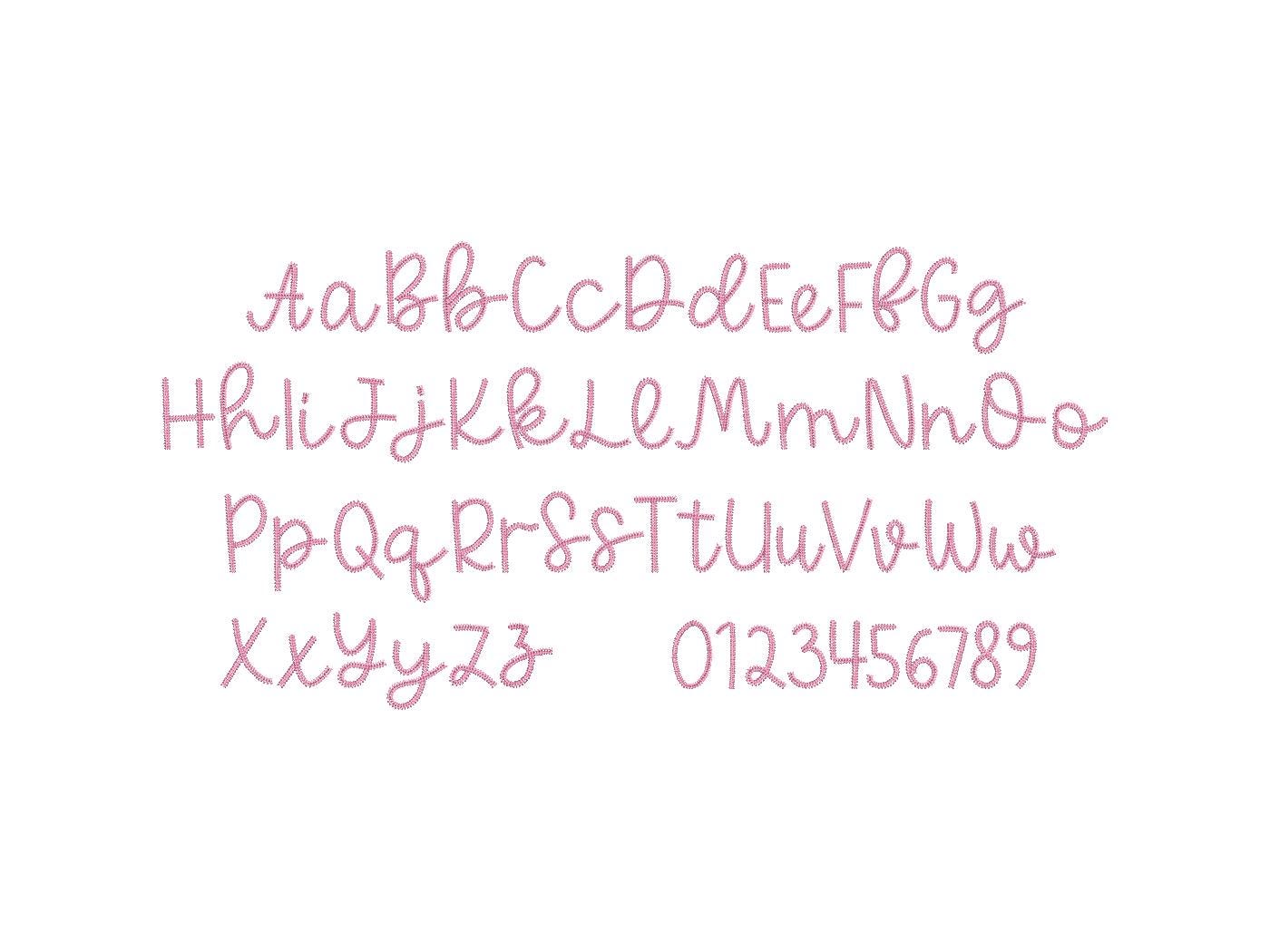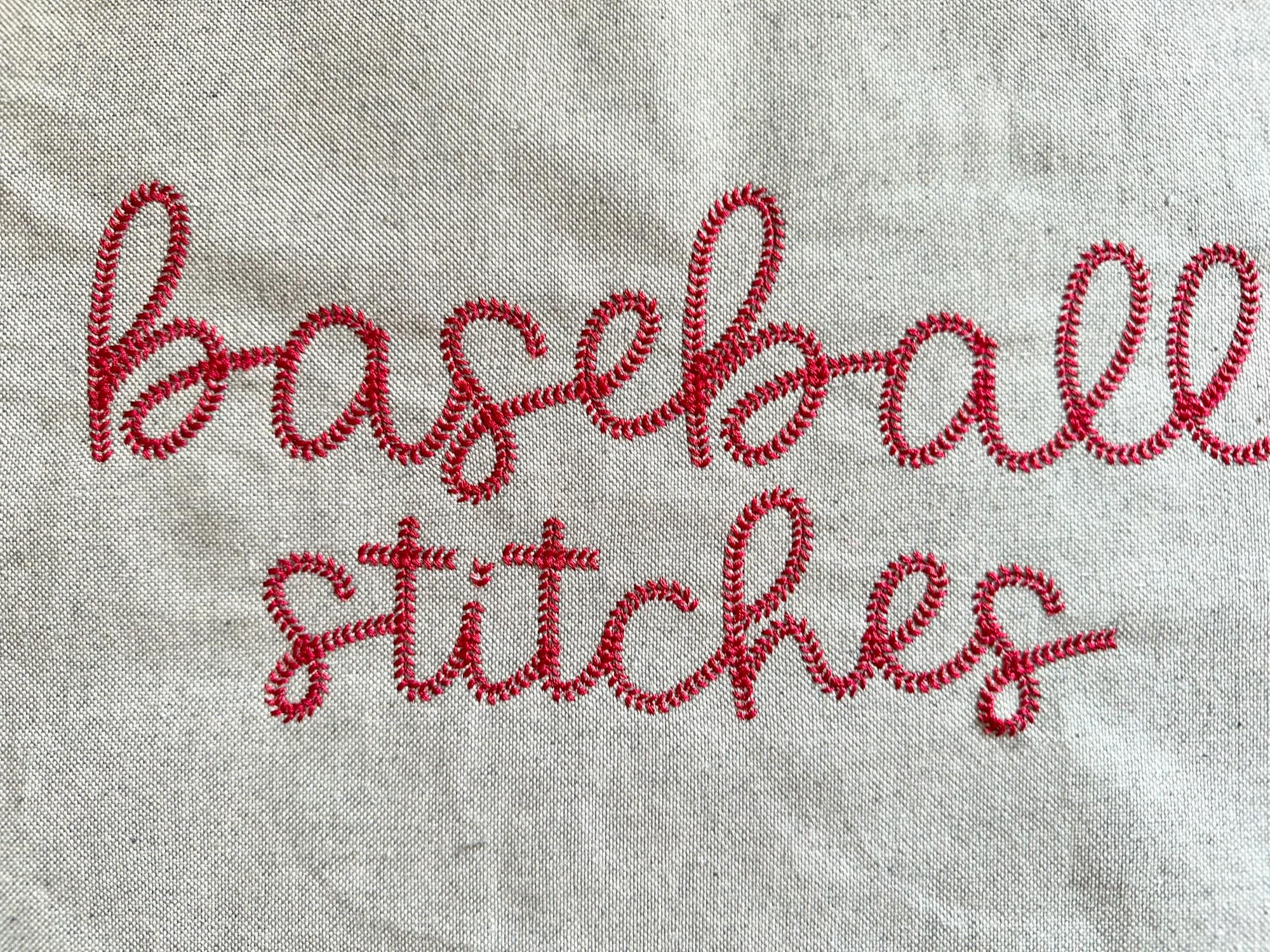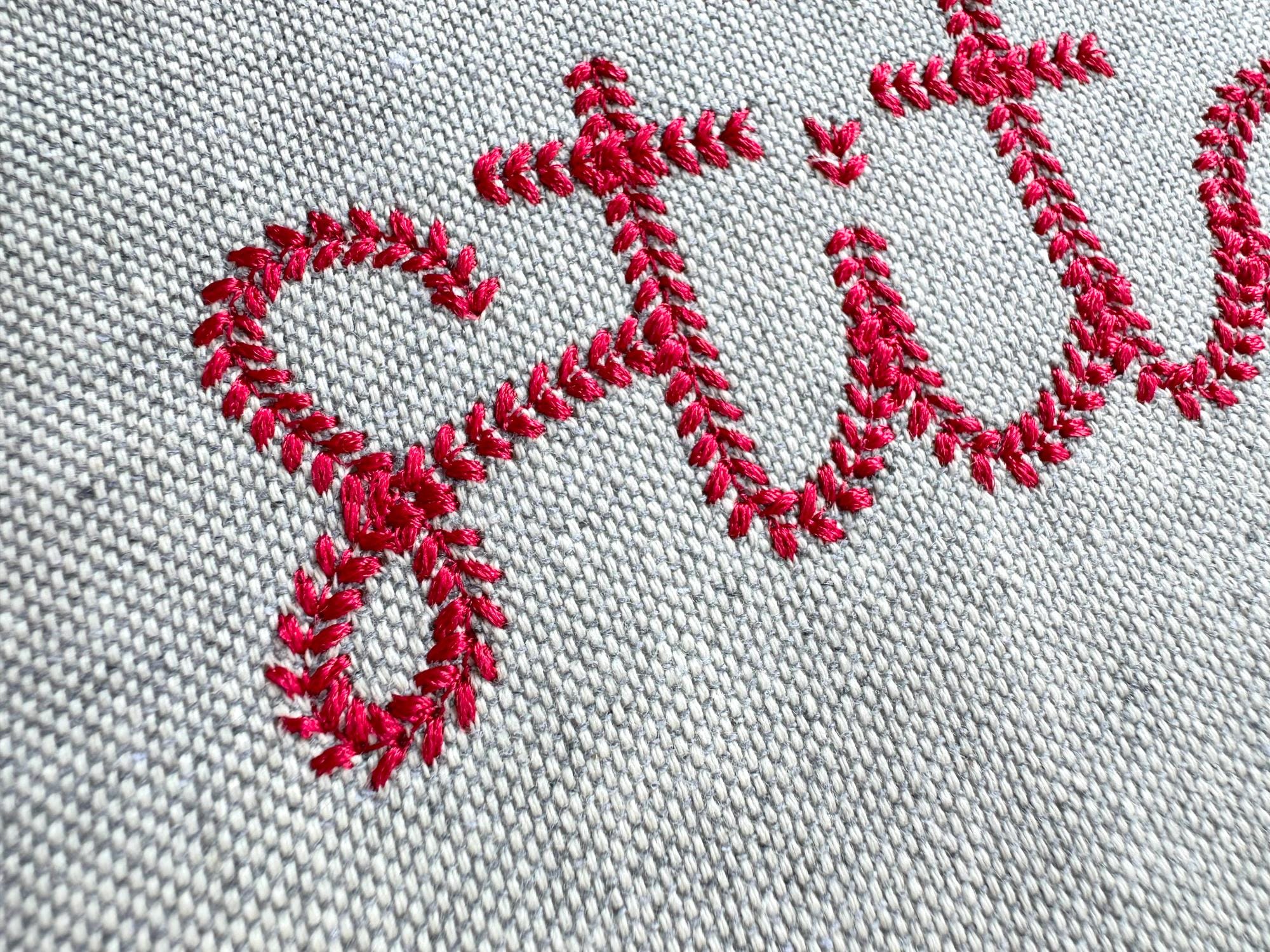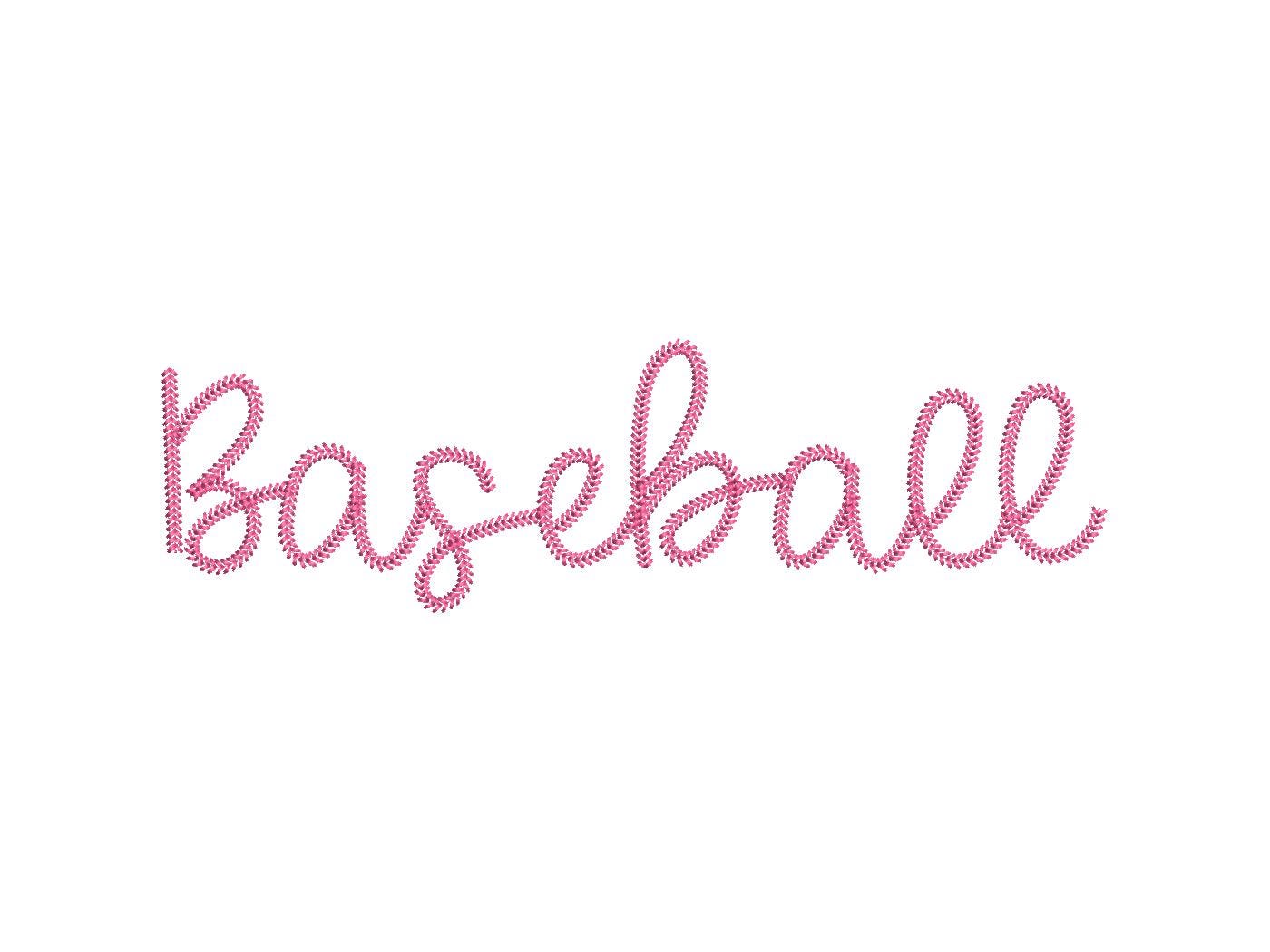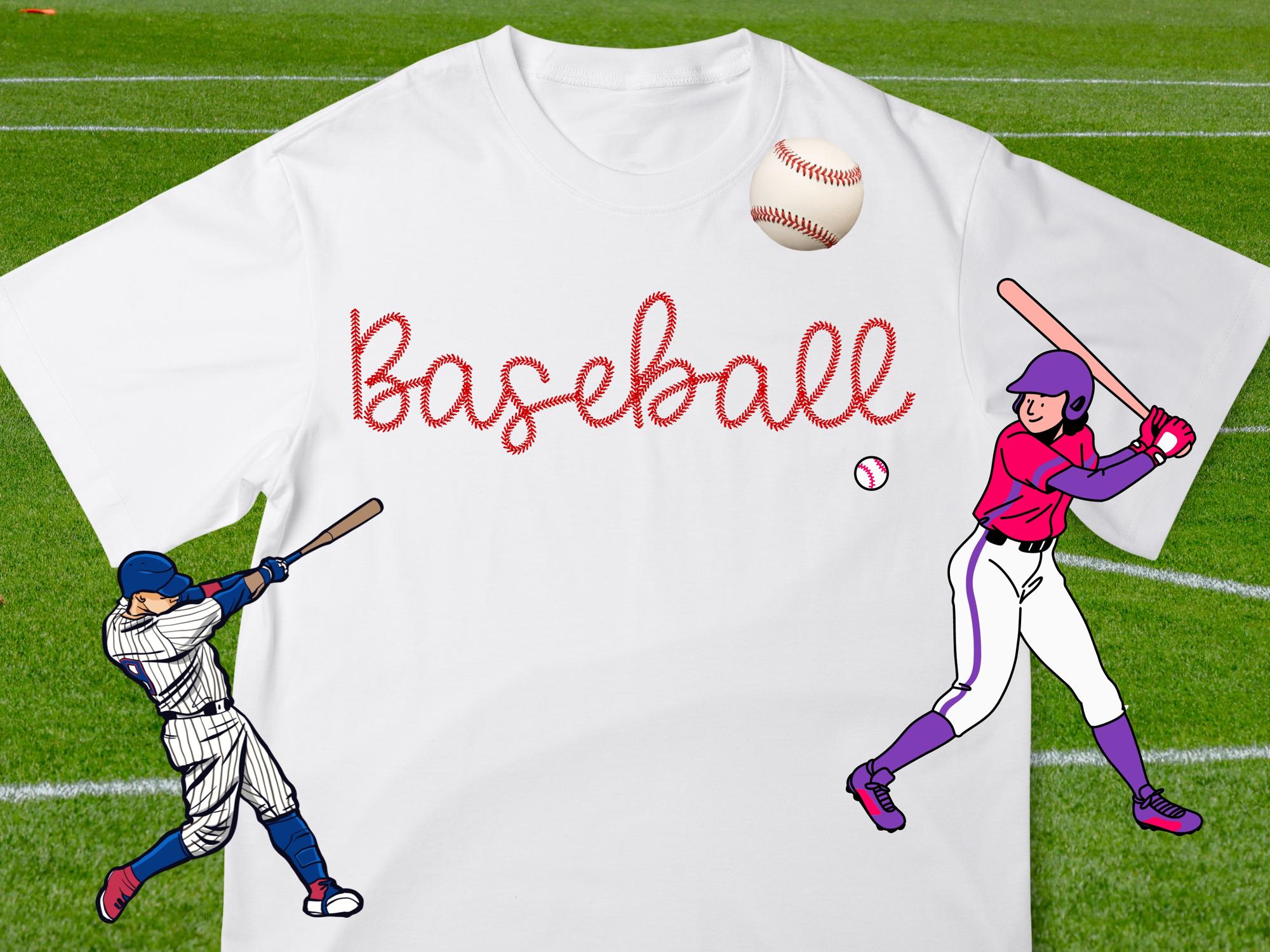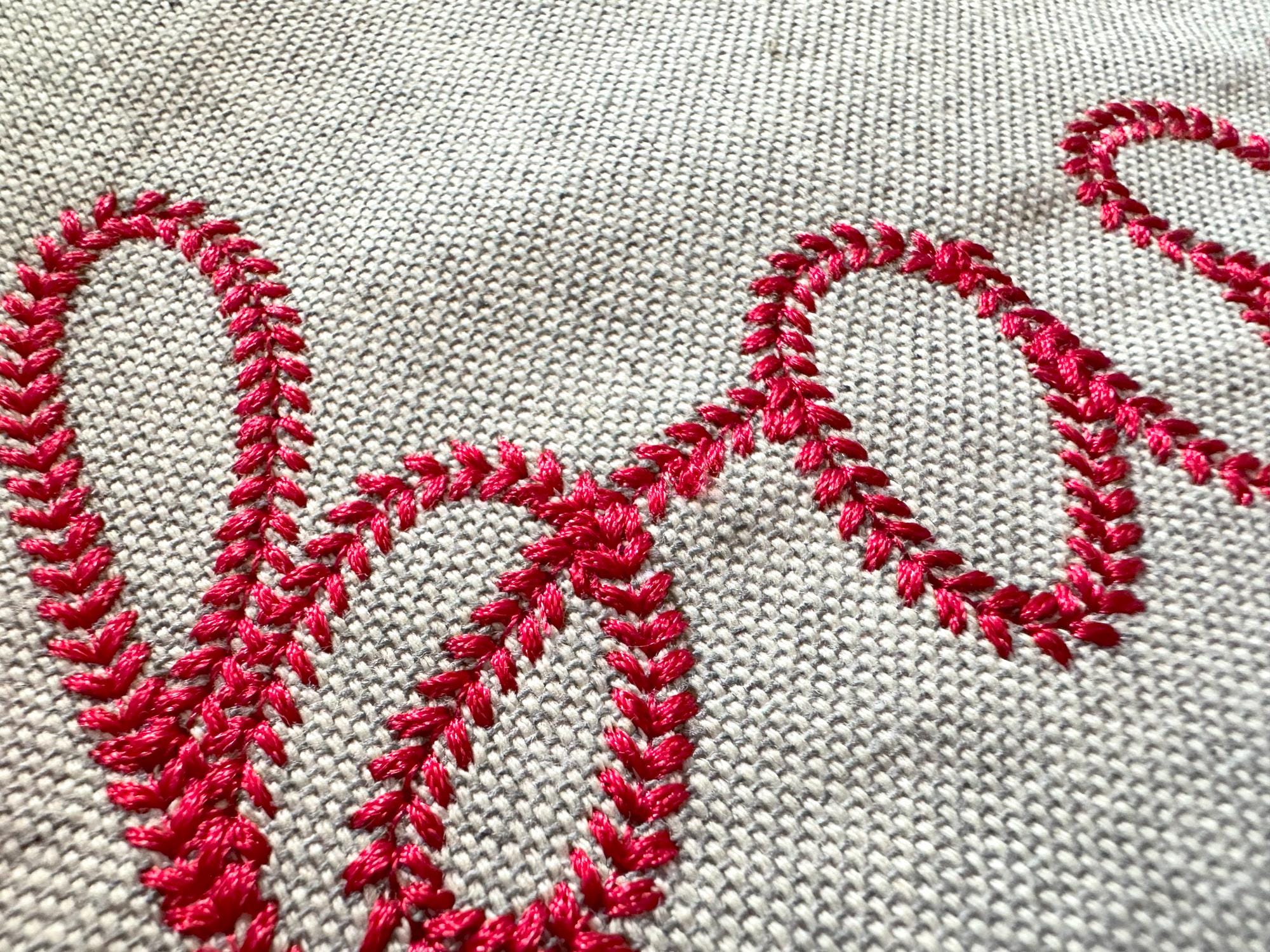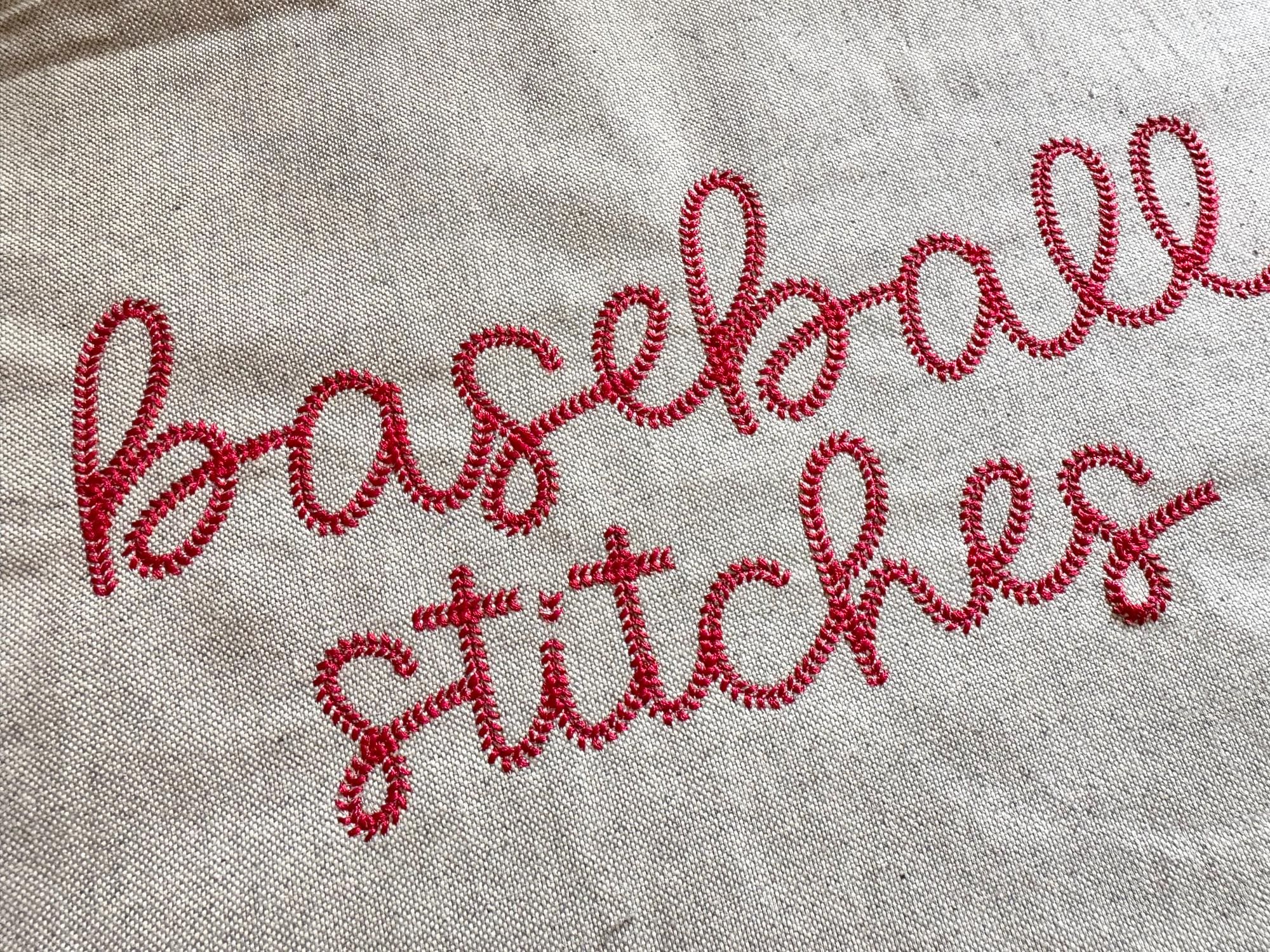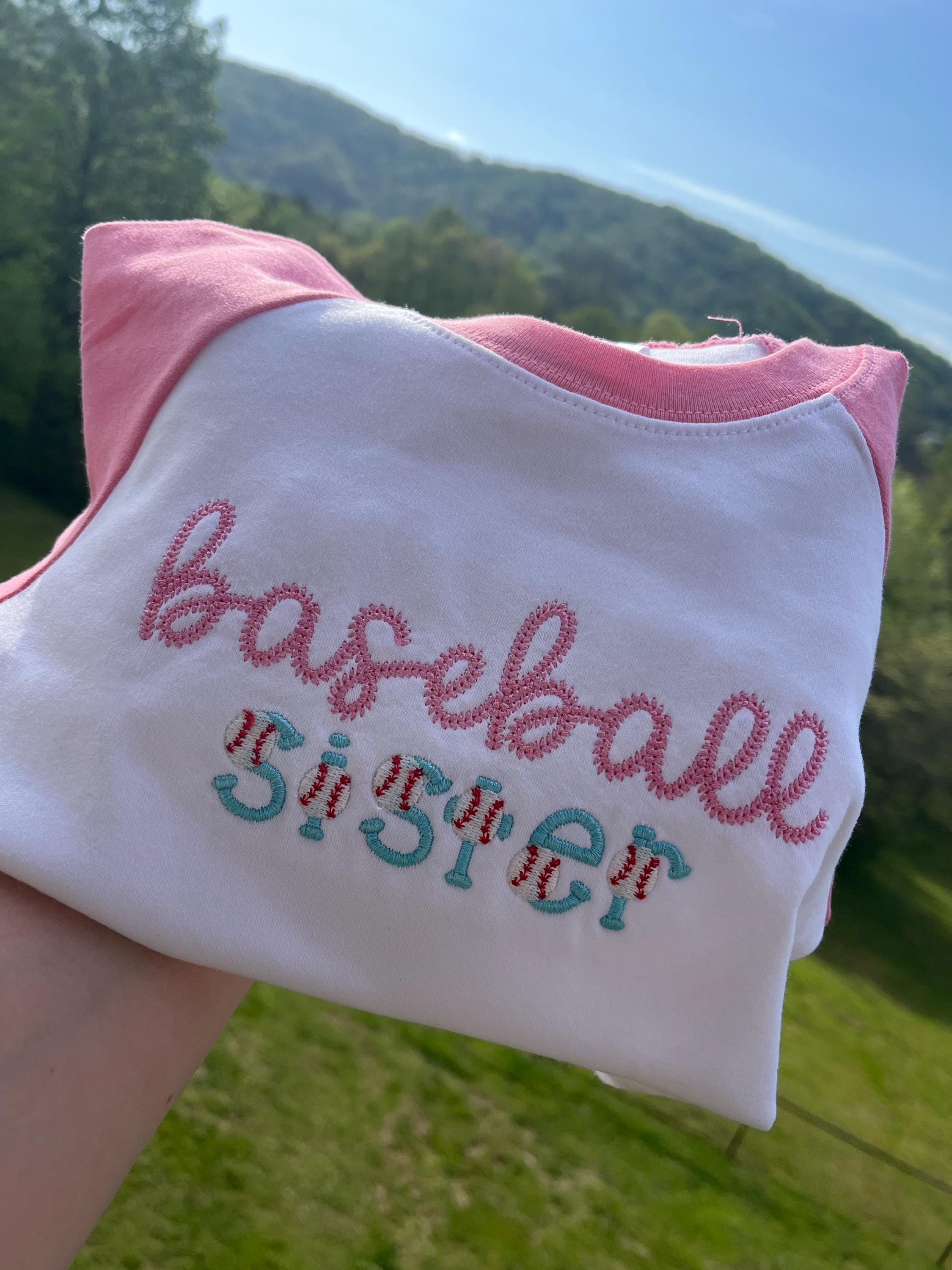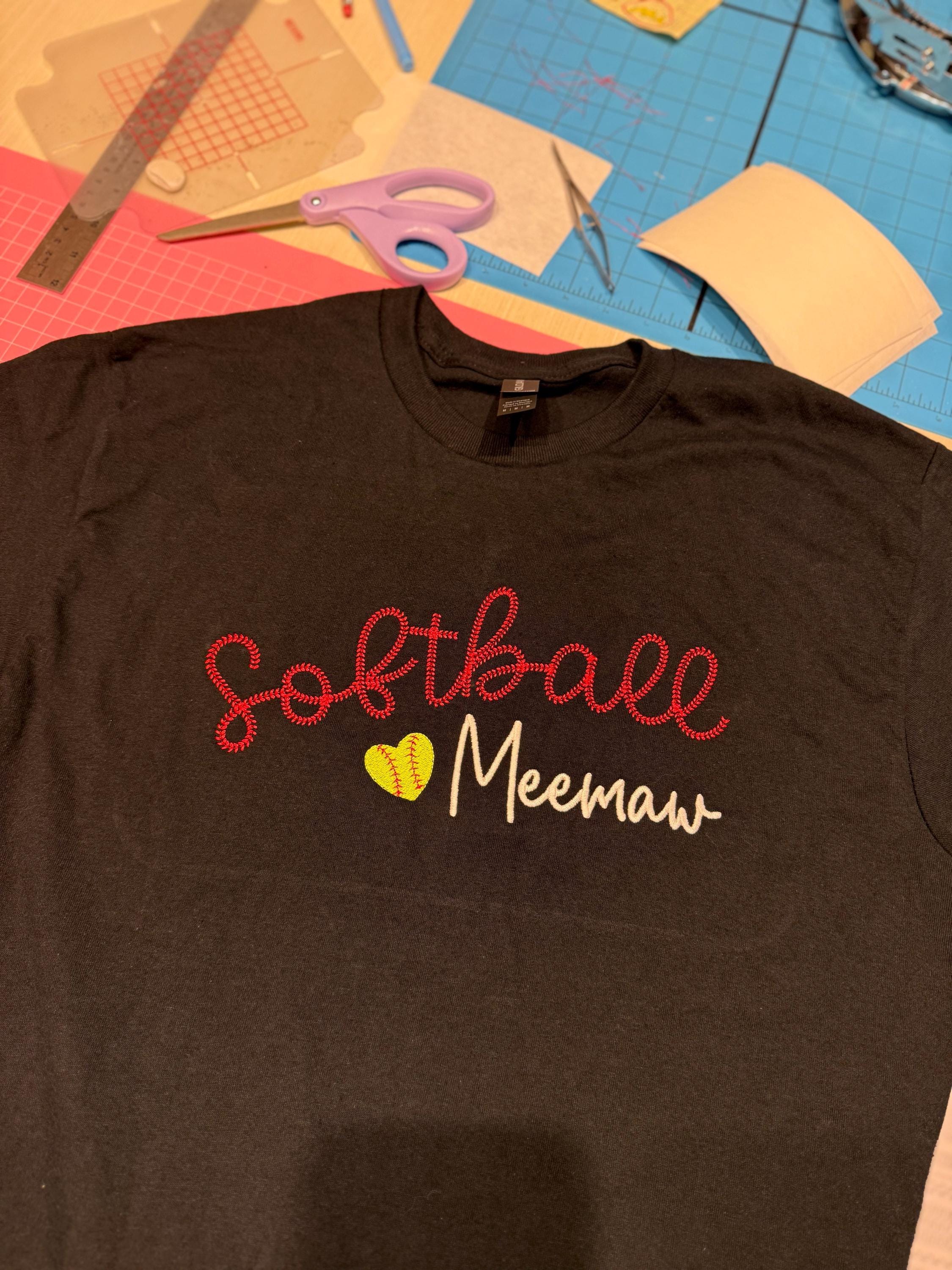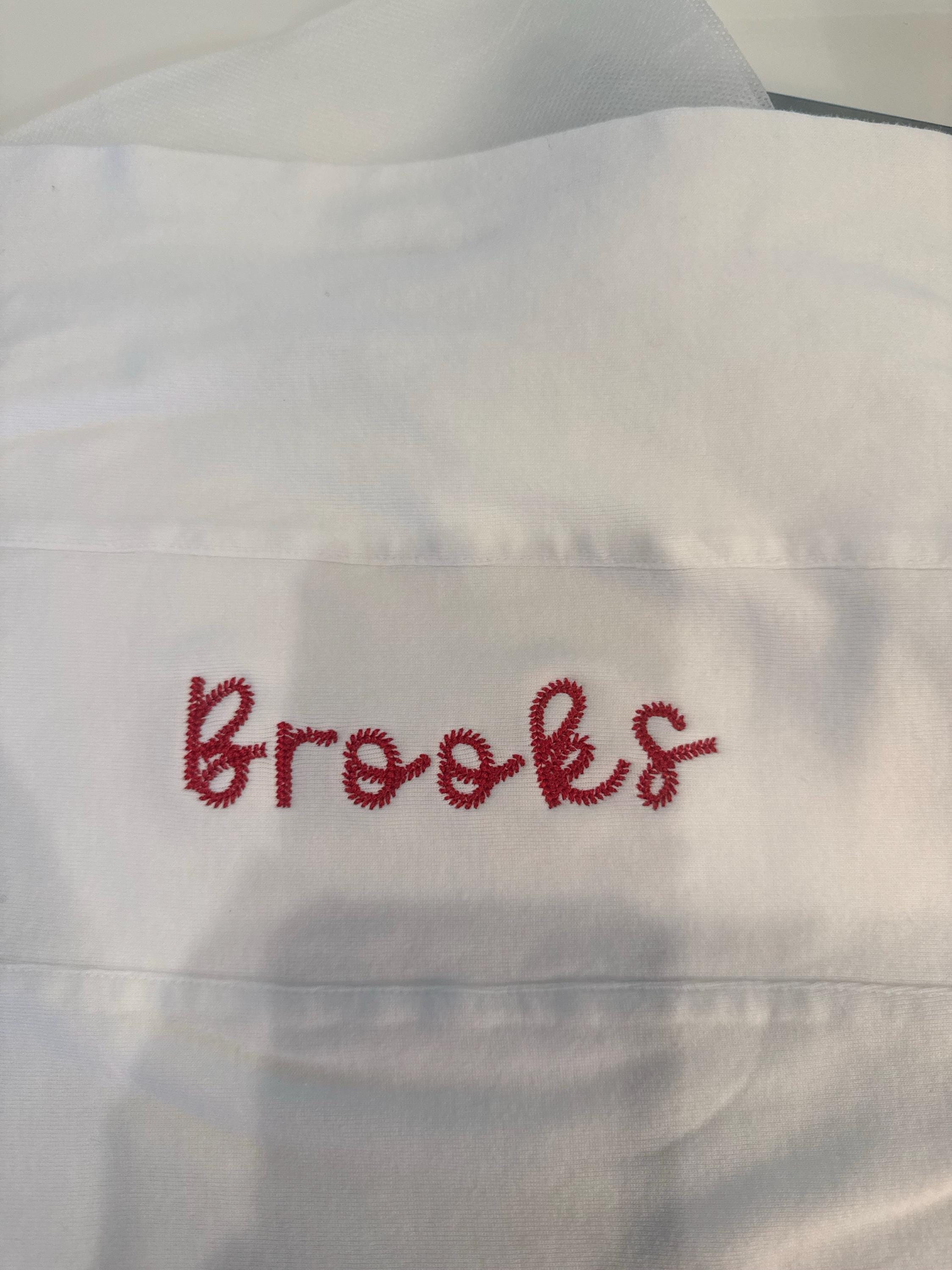
NEW! Baseball stitch FONT awesome sports stitch handwritten script alphabet letters machine embroidery designs multiple sizes 1.6 up to 3in
Entire alphabet uppercase and lowercase letters, and numbers.